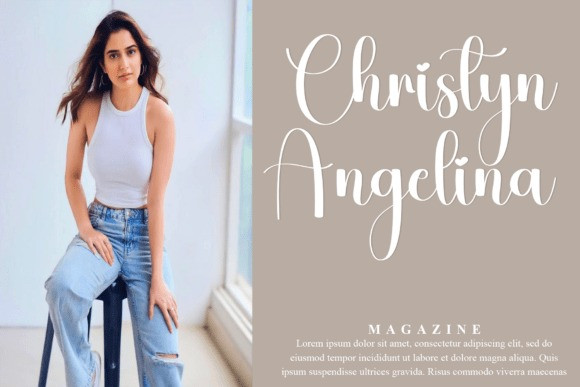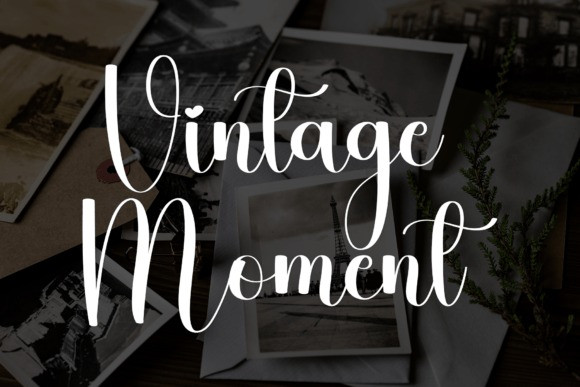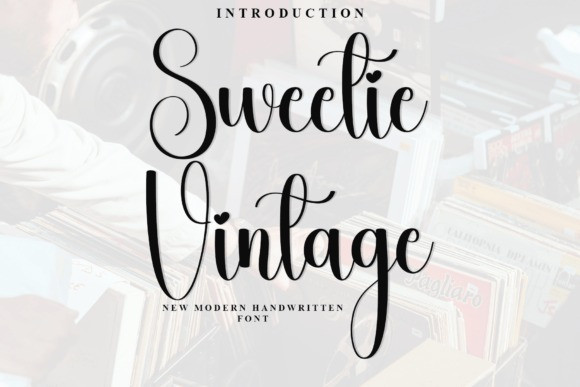
Sweetie Vintage Script Font
Sweetie Vintage Script Font Elegant and flowing, this script font captures the beauty of hand-lettered calligraphy with a modern twist. Its smooth curves and graceful strokes make it perfect for wedding invitations, logos, branding, social media, and anything that needs a touch of sophistication. Whether you’re going for romantic, classy, or chic, this font delivers charm and personality in every letter.